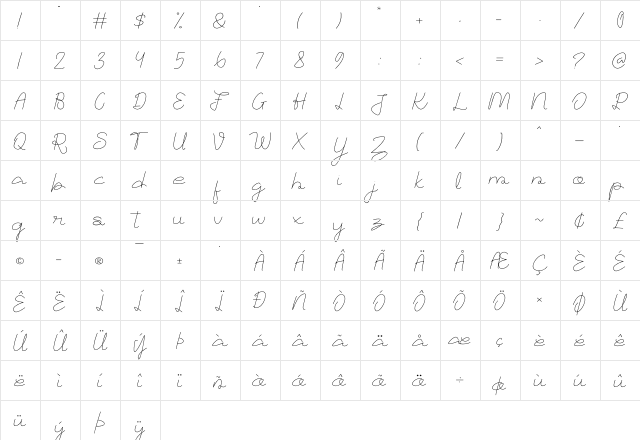
Angkringanth Regular
| Designer | Wildan Suprian Syah |
Design Context for Angkringanth Typeface
Angkringanth is a composed and adaptable typeface that performs quietly and consistently across a wide range of design contexts.